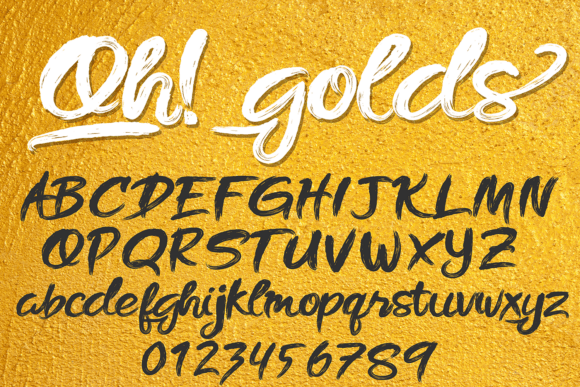
Introduction to Oh! Golds Font
Have you ever been working on a creative project, pouring your heart and soul into it, only to feel like something’s missing? The perfect font can be the game-changer that takes your design from good to great. For many designers, the search for that elusive font is a constant quest. But what if I told you that you’ve stumbled upon a treasure trove of elegance and sophistication – the Oh! Golds Font?
This stunning script font boasts bold, fine strokes and a natural flow, making it a design resource like no other. With its clean, handwritten vibes and classic aesthetic, the Oh! Golds Font is the perfect addition to any high-quality design project, from wedding invitations to inspirational quotes with a natural handmade vibe.
Key Features of Oh! Golds Font
- High-quality font design ideal for creative projects and design resources
- Transparent background, making it easy to use on any background image or color
- Includes 5 unique font styles with various weights and sizes, perfect for headings and body text
- Compatible with a wide range of resolutions, including HD and 4K displays
- Designed to be easily readable on both digital and print media, making it a great design resource
Honest Review: Oh! Golds Font
I recently stumbled upon the Oh! Golds Font, and I’m excited to share my honest review. As a designer, I’m always on the lookout for high-quality design resources that can elevate my creative projects.
- Transparent background: The font has a transparent background, making it easy to use with any design element.
- High-quality design: The font is well-designed, with clean lines and a professional feel.
- Limited font styles: The Oh! Golds Font comes in a limited number of styles, which may not be suitable for complex design projects.
Overall, I’m impressed with the Oh! Golds Font’s high-quality design and free download option. While it has some limitations, it’s still a valuable resource for designers working on creative projects.
How to Use Oh! Golds Font
Oh! Golds Font is a high-quality, free download design resource perfect for adding a touch of elegance to your creative project. With its transparent background and stylish typography, it’s an ideal choice for designers looking to elevate their work.
Getting the Most Out of Oh! Golds Font
To get the most out of Oh! Golds Font, use it to create eye-catching headlines, titles, and subtitles for your design projects. You can also use it to add a touch of elegance to your text-based designs.
Oh! Golds Font is commonly used in a variety of design projects, including business cards, brochures, posters, and social media graphics. It’s also a popular choice for wedding invitations and other special occasion designs.